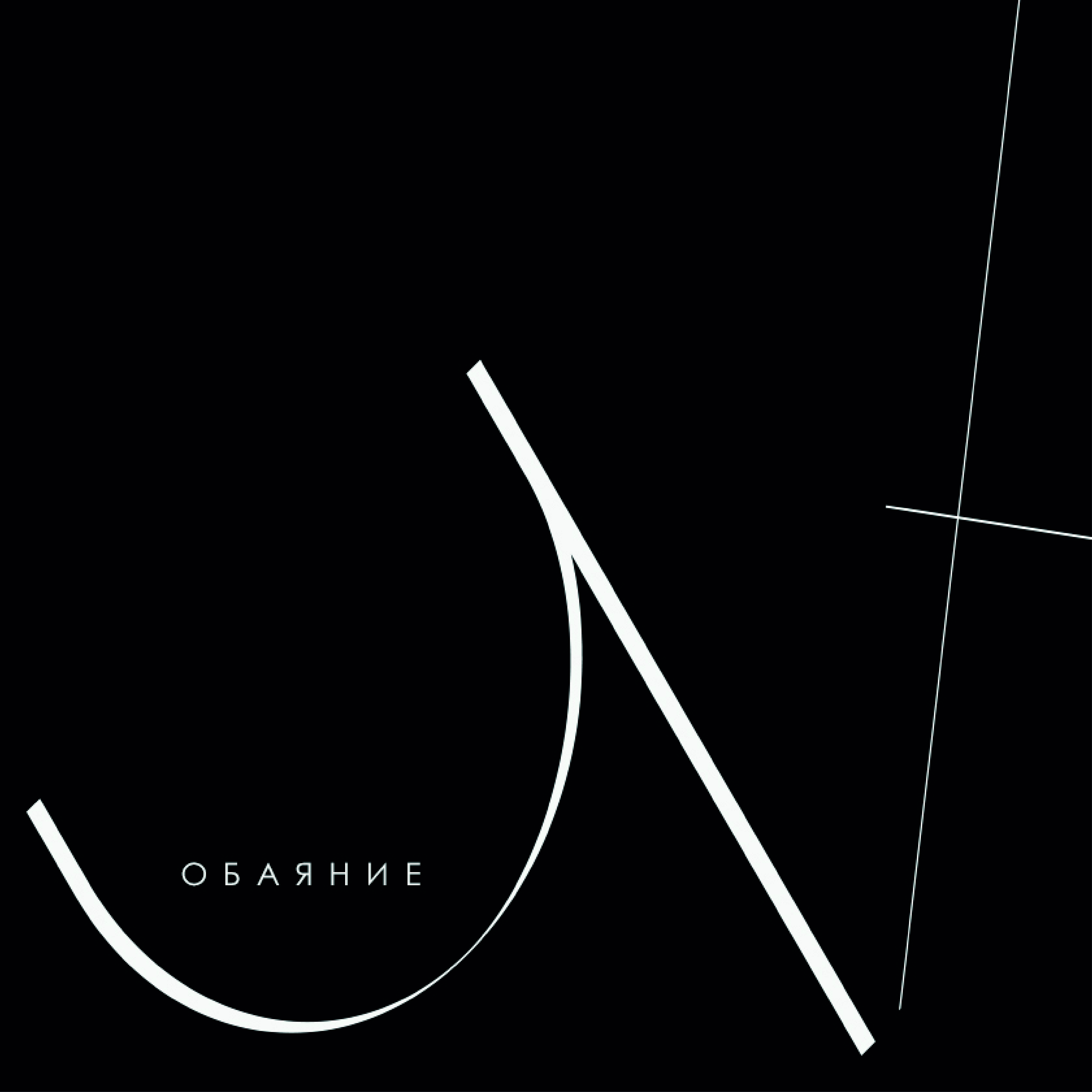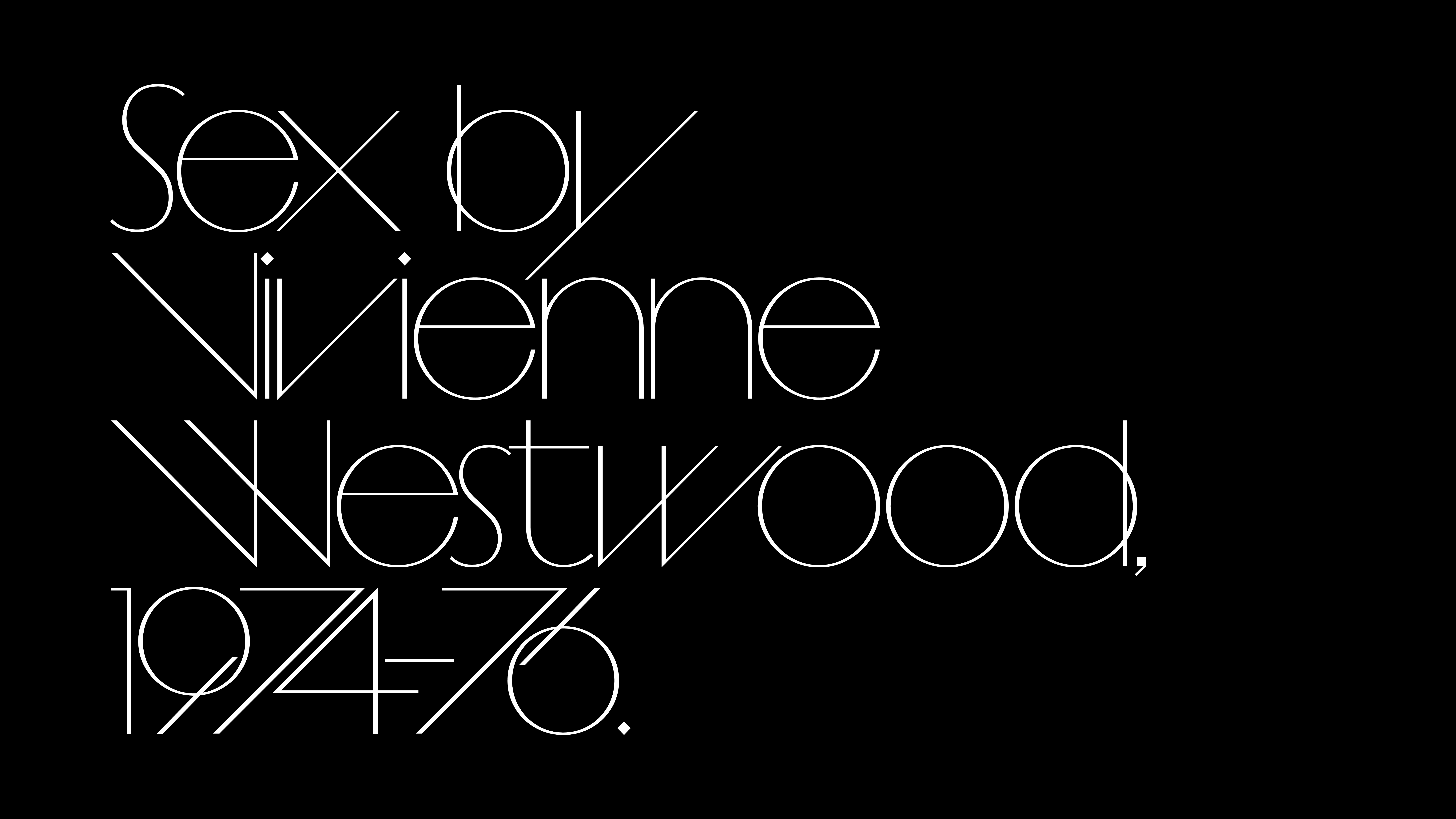
F37 Lara
Elegant, experimental and spaced insanely tight, Non-Format have revived one of their own typefaces 13 years later.
Lara started life as font designed for The Sanahunt Times, a luxury department store in Kiev. For its new release, F37 Lara was updated and bolstered with a huge swath of new features. Originally a caps only font for English and Cyrillic, it now contains all the lowercases to match, as well as extended Latin and Cyrillic support. The extremely thin stokes of the original Lara were striking at its intended large size. However, used at any smaller size the thins would break or disappear all together. F37 Lara comes in 3 styles, the original Hair style, as well as new Display and Body styles. Both of these styles thicken the thins to ensure the font can work elegantly across sizes. If the kerning was not tight enough, F37 Lara also contains a Stylistic Set that overlaps certain glyphs for that extreme Herb Lubalin vibe. Other Stylistic Sets found in the font are a simple lowercase set, a wide and narrow set and alternate numeral set to name a few.
F37 Lara
Inspiration
F37 Lara
Interview
Tell us about the inspiration behind your collaboration with F37®×. If it was an unused concept, what was the potential use case for it.
F37 Lara was originally a caps-only, geometric Cyrillic sans serif typeface created in 2010 for the Kyiv-based luxury department store Sanahunt. It was featured prominently in their seasonal newspaper/lookbook The Sanahunt Times. Our intention was to create a display typeface that would look crisp and elegant when used on headlines at extremely large sizes – even if it was just a single character filling an entire page. F37 Lara needed to extend beyond its caps-only Cyrillic origins to include a complete Roman upper and lowercase character set, while allowing the user to have precise control over the contrast between the thick and thin strokes. F37 Lara is intended for large headlines, concise pronouncements, declarations of independence and other fashionista outbursts.
When starting the process of creating your font, what typographic conventions did you look to break or experiment with? Or were there conventions of functionality you championed?
Our primary ambition was to create a font that could be used really, really big while retaining its elegance. We wanted to push the term ‘hairline’ as far as it would go. However, when used at smaller sizes those super thin strokes were likely to disappear altogether, so it was important to add a variable feature that would allow for precise control over the relationship between the thick and thin strokes. F37 Lara has three preset weights to choose from (Hairline, Display and Text) but the variable feature allows for the contrast to be tweaked according to personal preference. F37 Lara was inspired by the long history of Didone fonts being used in fashion publications. We wanted our own Didone but sans serif, with a much simpler, more geometric construction that might be found in the lighter weights of Futura or, perhaps most of all, Avant Garde. Each stroke needed to be either vertical, horizontal, at a strict 45° or purely circular, as much as possible. Of course, this kind of structural purity is often completely at odds with typographic norms so there’s an implied tug-of-war between the strict rules of this font and how fonts naturally want to express themselves.
Now that your typeface has launched, what would be your dream project to use your F37® typeface on?
We’d love to see it standing right next to a supermodel. Perhaps even wrapping around a supermodel if that’s not too much to ask.
What have you learnt through developing and creating your own typeface(s) with our F37® type designers?
We’ve discovered that our instincts for creating fonts are often at odds with the instincts of a professional font designer. We are often guided by the Brian Eno school of defining a set of seemingly arbitrary rules and then sticking to them come what may. Our inflexibility with these rules has a tendency to butt up against centuries of nuanced, typographic craftsmanship but our hope is that it’ll create some unexpected results that won’t offend absolutely everybody. Luckily the F37® team is not populated by curmudgeonly traditionalists. They were extremely accommodating of our uncompromising approach and the results speak for themselves. We realise there might be aspects of our font that people could find a bit strange, such as its impossibly tight kerning or its rather mechanistic geometry but those are the qualities we like and we hope others will like also.
How would you describe your typeface in three words?
Geometry gets emotional.